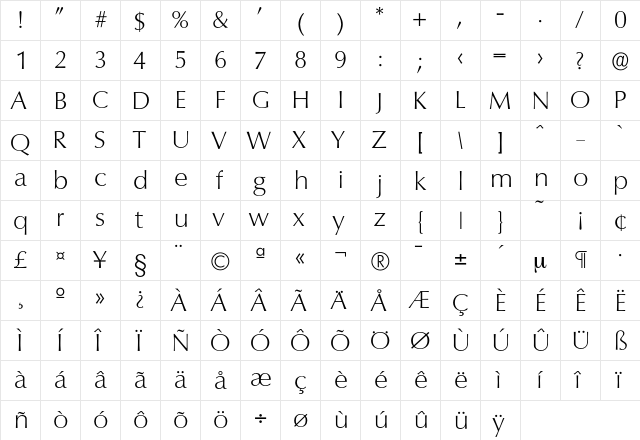
Columbia-Xlight Regular Font Preview
Columbia-Xlight Regular
Design Context for Columbia-Xlight Typeface
Columbia-Xlight takes a measured approach to typography — its balanced proportions and neutral character make it a reliable workhorse for both digital and print work. Its slender proportions lend an understated elegance to any composition.